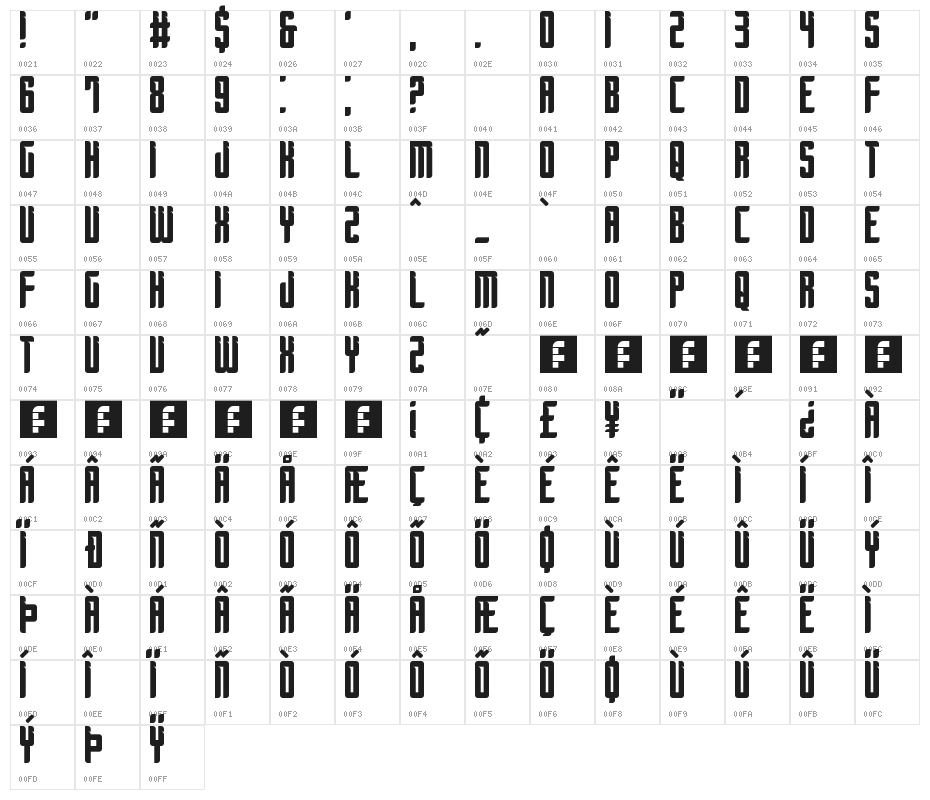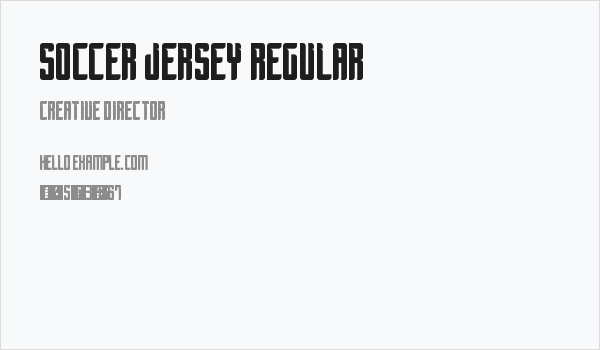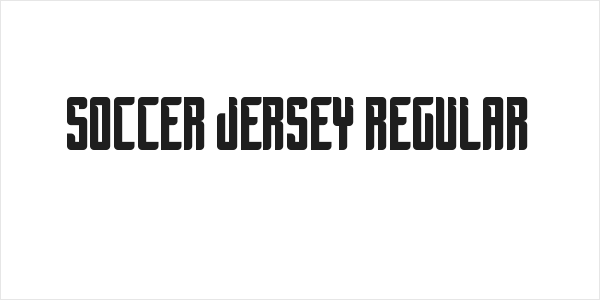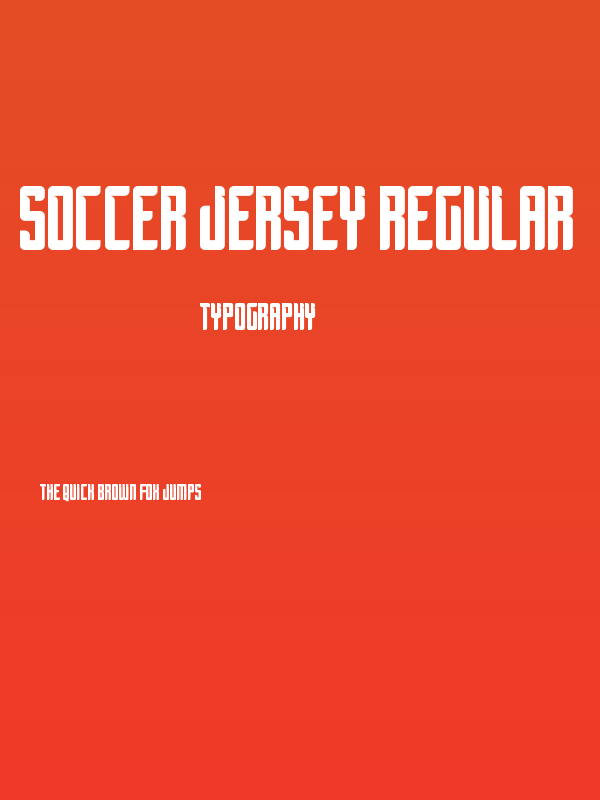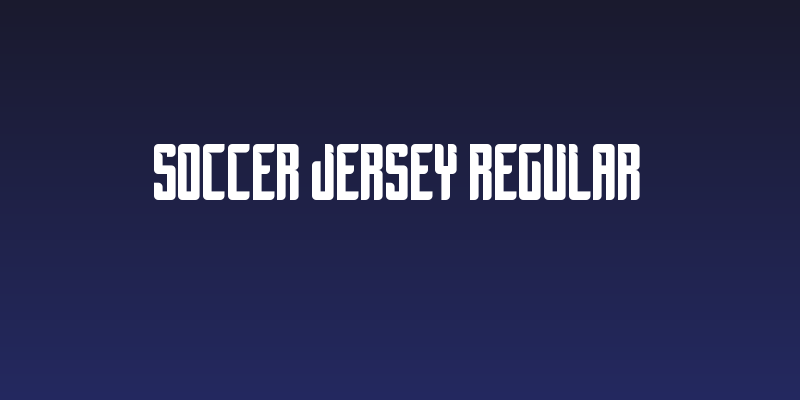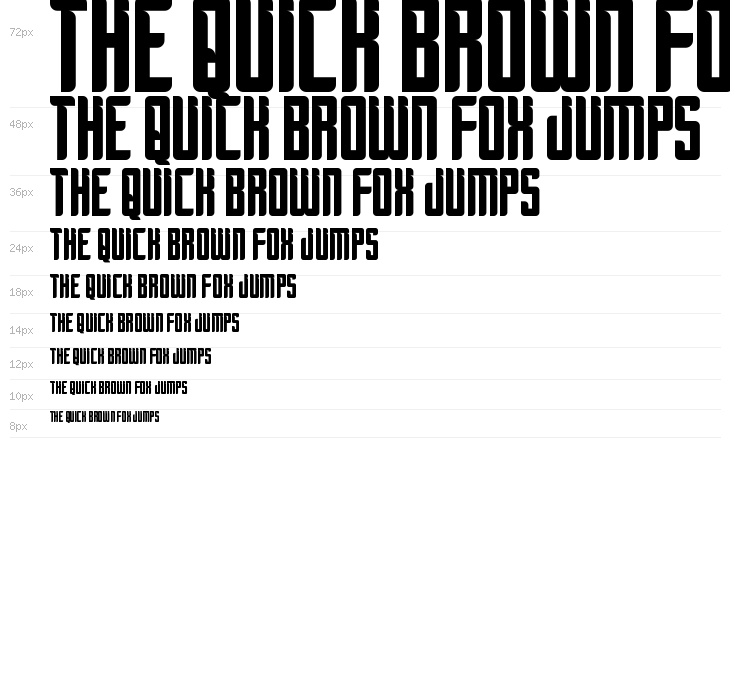
Soccer Jersey Regular Font
Soccer Jersey Regular Description
This font features a bold and impactful design, characterized by its thick, block-like letterforms that convey strength and stability. The characters are uniformly structured with a consistent width, creating a cohesive and balanced appearance. The vertical and horizontal strokes are prominent, giving the font a strong presence. The overall style is reminiscent of sports jerseys, making it ideal for athletic and competitive themes. The numbers and special characters maintain the same robust style, ensuring a uniform look across all text elements.
| Proposed Projects | Ideal for sports team jerseys, athletic event posters, and branding for sports-related products. |